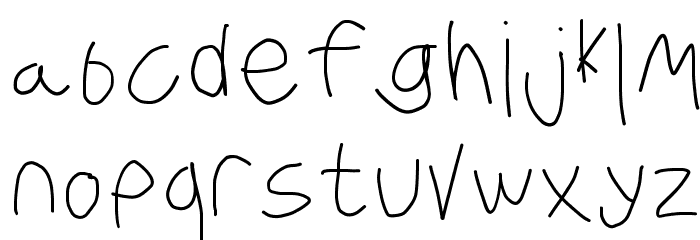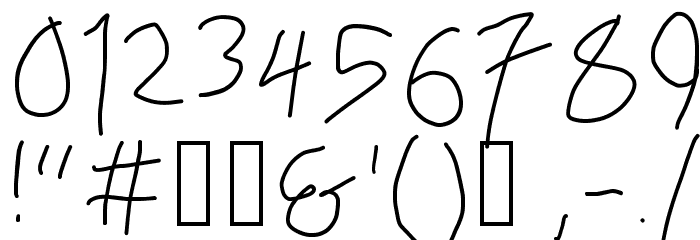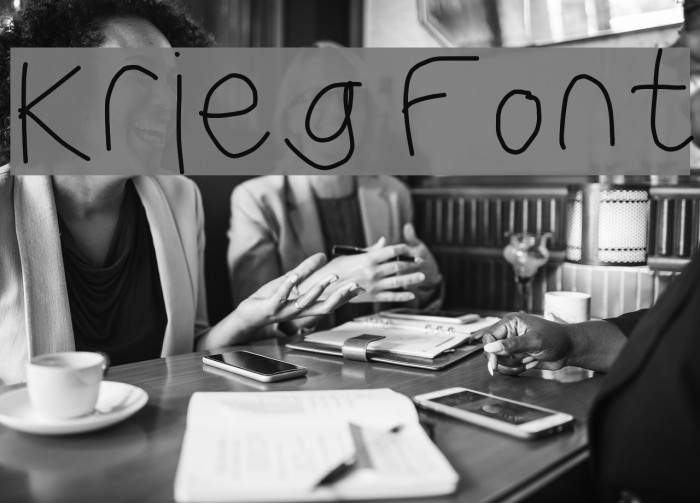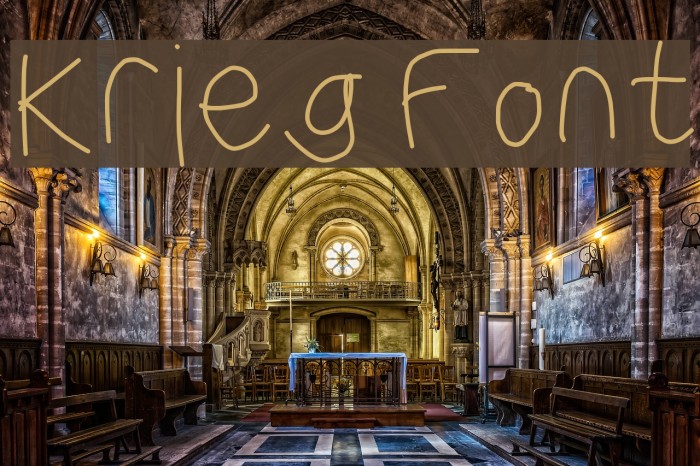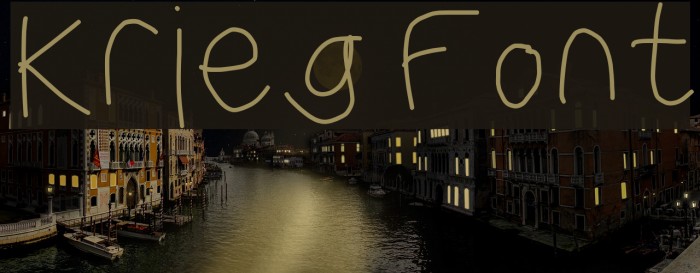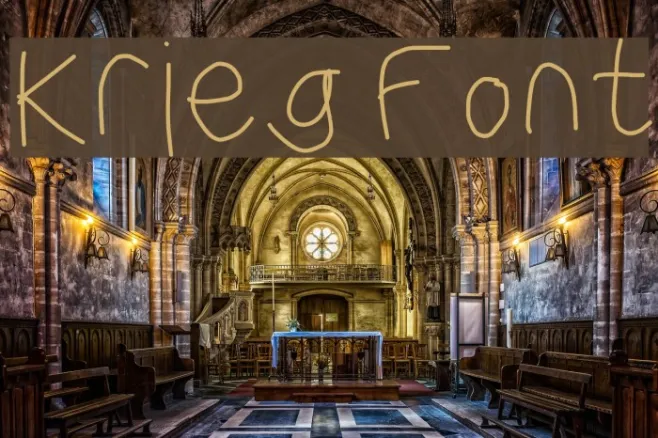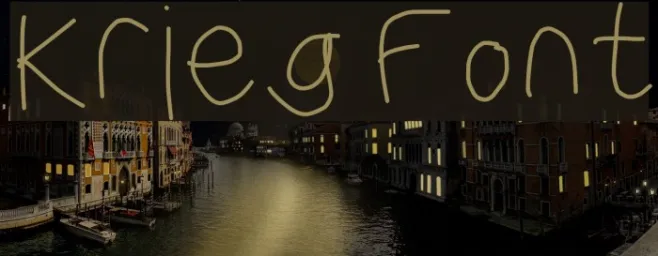
Krieg Font Font
This font features a playful and casual handwritten style, characterized by its irregular, slightly uneven strokes that mimic natural handwriting. The letters are free-flowing with a sense of spontaneity, giving it a personal and informal feel. The uppercase and lowercase letters maintain a consistent style, with rounded edges and a slight slant, adding to its approachable and friendly appearance. The numerals and special characters follow the same handwritten aesthetic, ensuring uniformity across all glyphs. This font is ideal for projects that require a personal touch or a relaxed, informal vibe.
A playful, casual handwritten font with a personal touch.
- Proposed Projects: Ideal for greeting cards, personal blogs, informal invitations, and children's book illustrations.
- Overall Style: Casual, Playful
- Use Case: Headlines, Informal text, Personal projects